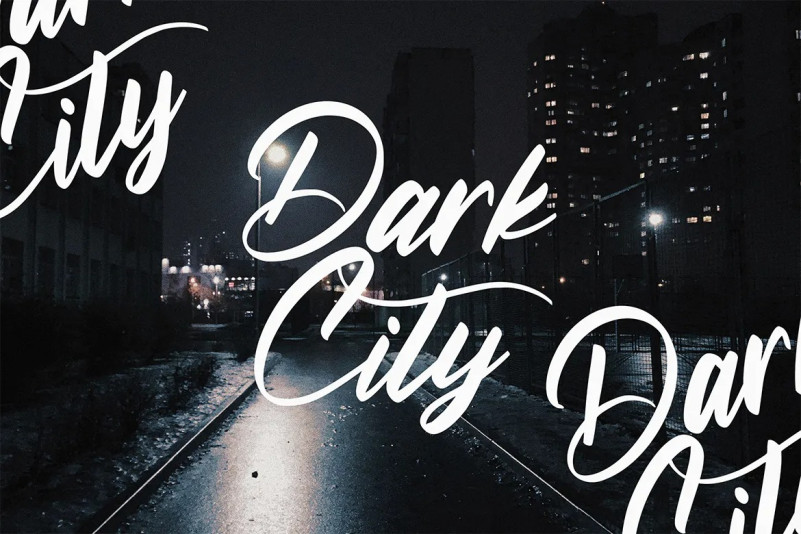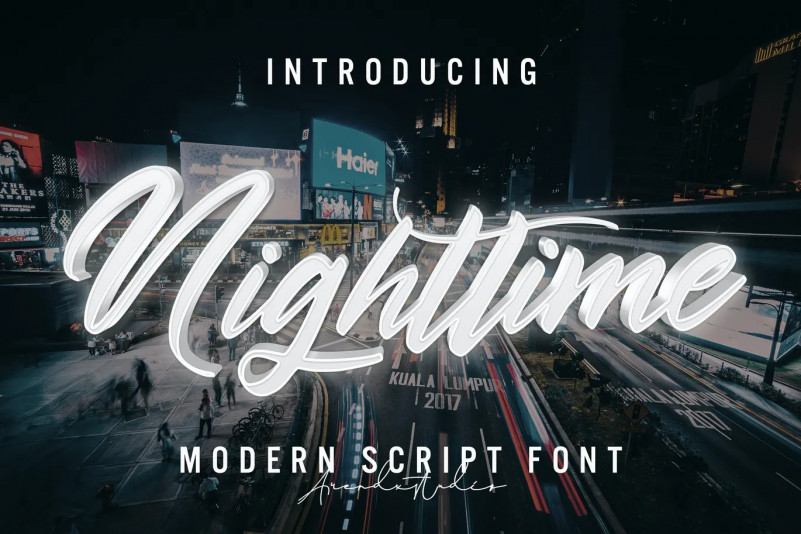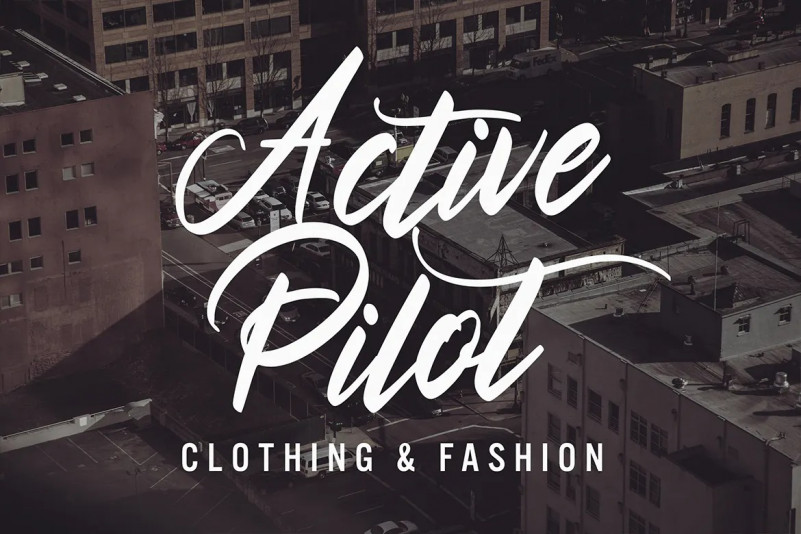
Nighttime Font
Nighttime – Modern Script Font with sharp and beautiful letters that create fonts that are modern, trendy and elegant. Came with opentype features such stylistic alternates, stylistic sets & ligatures good for logotype, poster, badge, book cover, tshirt design, packaging and any more.